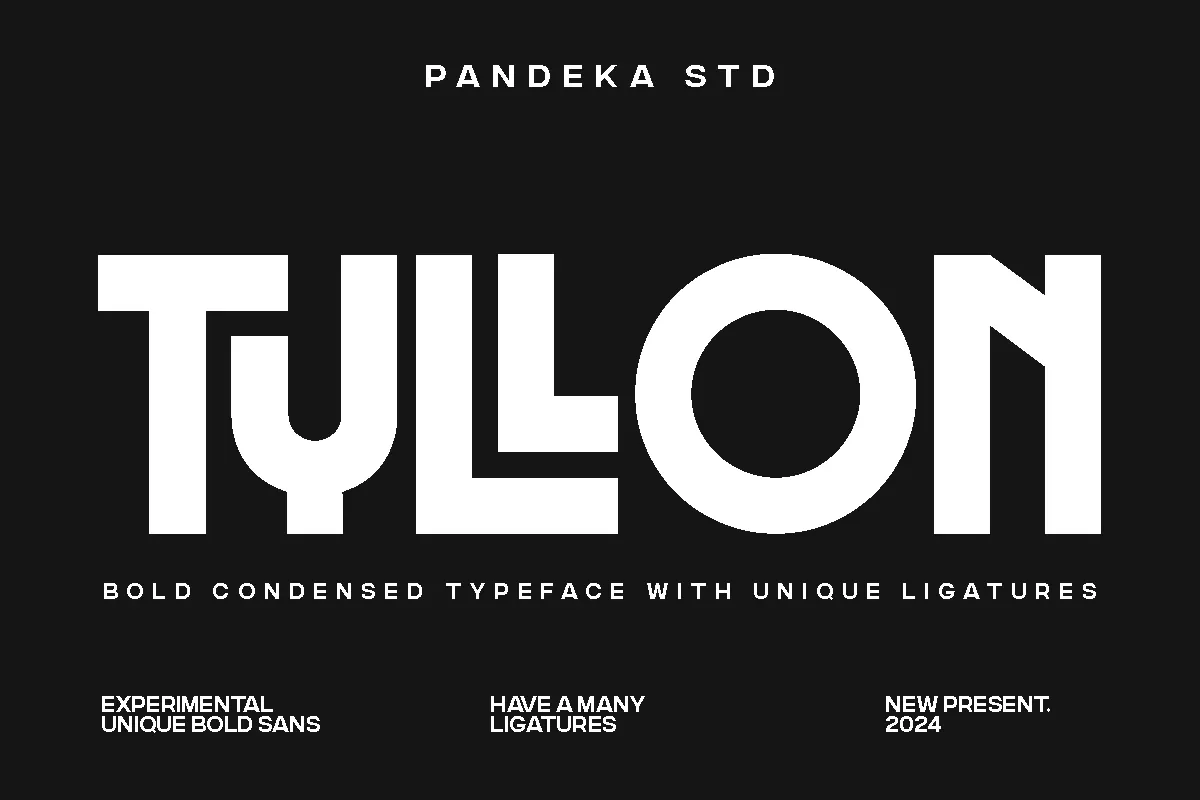
Tyllon – Bold Ligature Sans Serif Font Free Download is a sleek, modern typeface that combines bold sans-serif styling with creative ligatures to give your designs a unique, high-impact look. Perfect for branding, logos, posters, and editorial layouts, this font brings both strength and style to your creative projects.
With its strong, clean lines and unique ligatures that seamlessly connect characters, Tyllon – Bold Ligature Sans Serif Font Free Download offers a distinctive visual identity. It’s perfect for projects that need a fresh, contemporary, and attention-grabbing appearance.